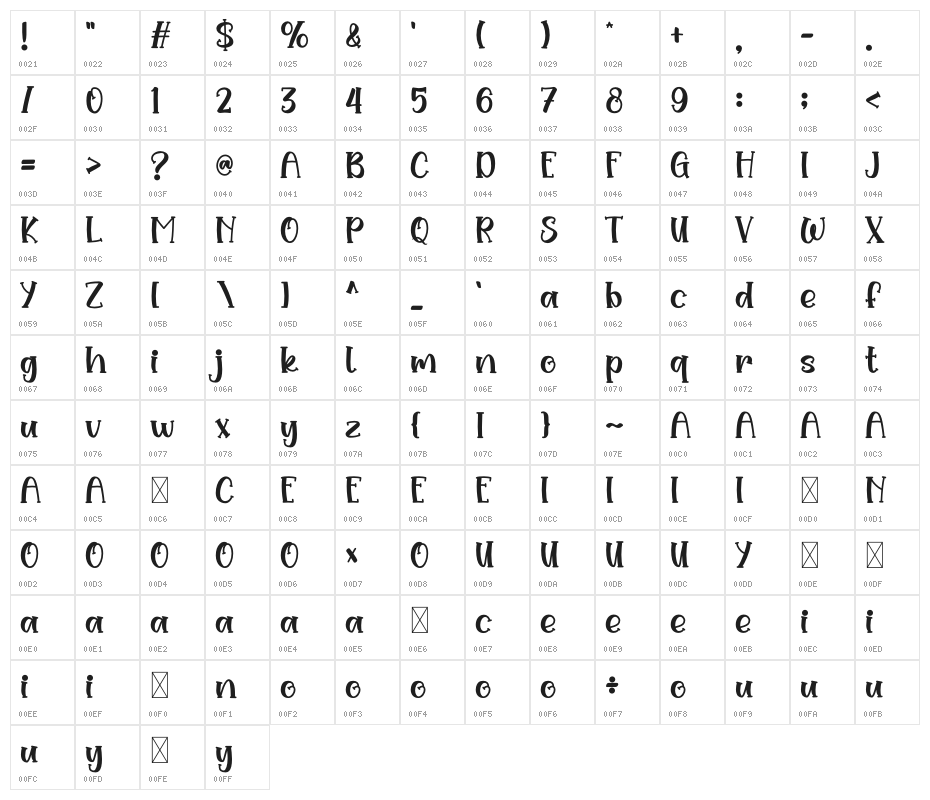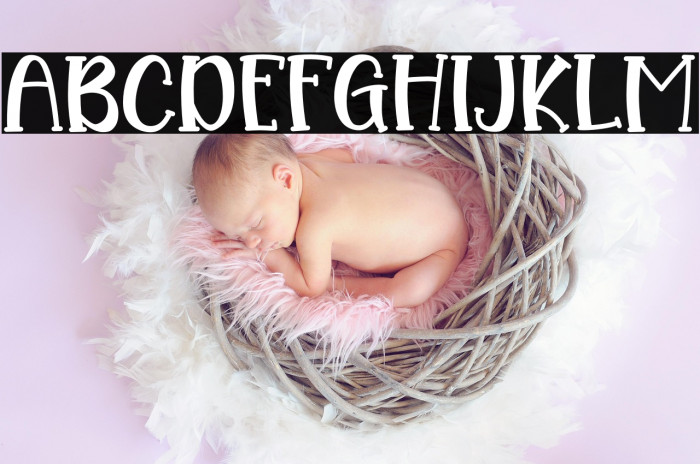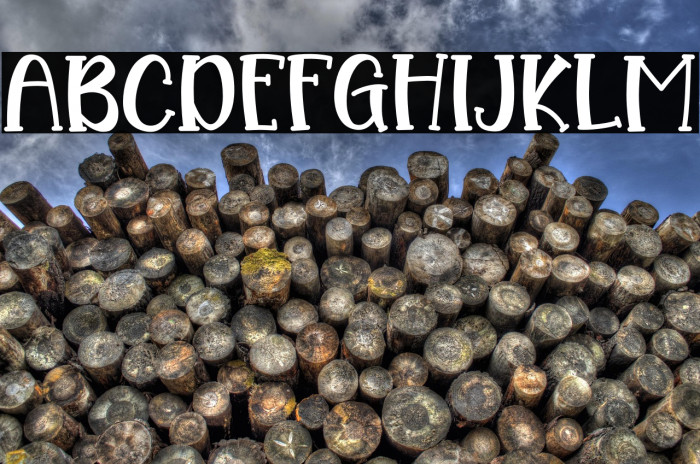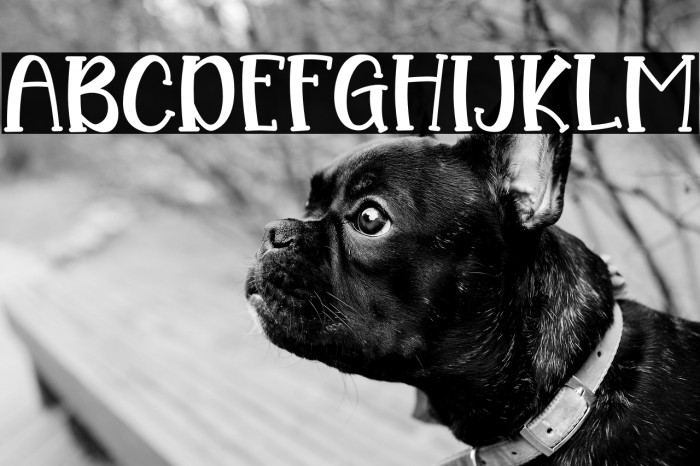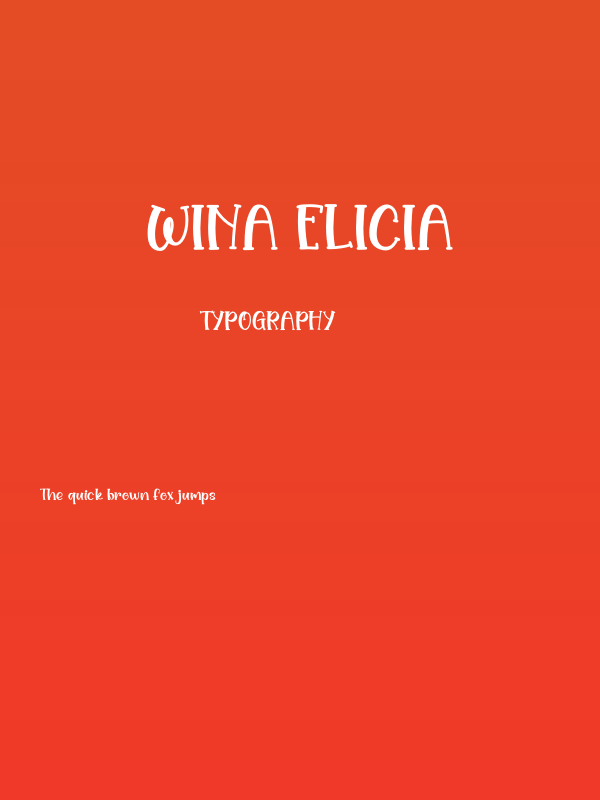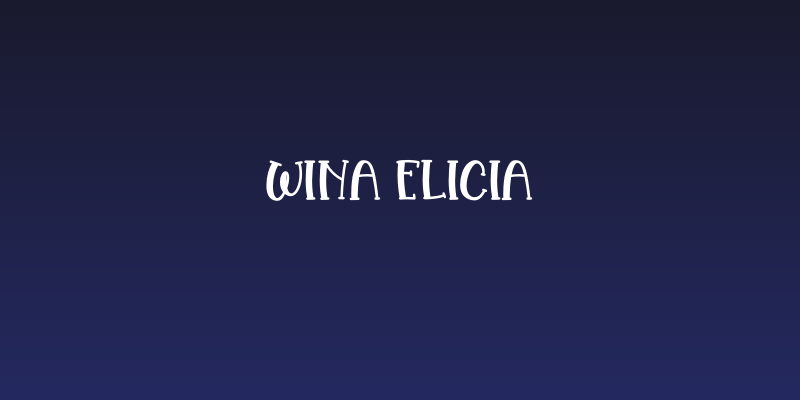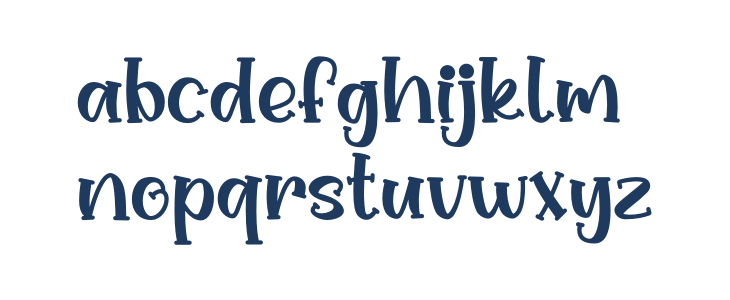
Wina Elicia Font
Wina Elicia Description
This playful and whimsical font features a handwritten style with a bold and expressive character. The letters have a slightly irregular baseline, adding to the casual and friendly appearance. The strokes are thick and rounded, giving it a warm and approachable feel. The uppercase and lowercase letters are distinct yet harmonize well together, while the numbers and special characters maintain the same lively style. This font is perfect for projects that require a personal touch or a fun, informal vibe.
Overall StylePlayful
Use CaseHeadlines, Logos, Invitations
Proposed ProjectsIdeal for greeting cards, children's books, playful branding, and casual invitations.